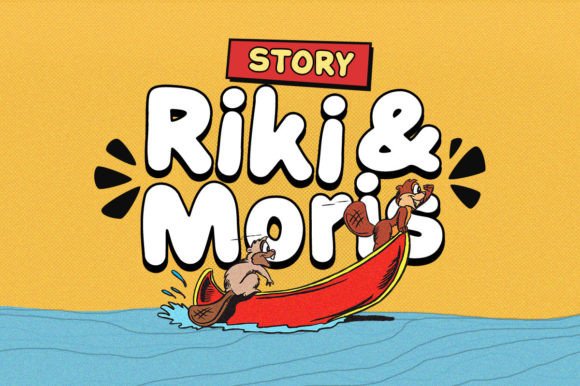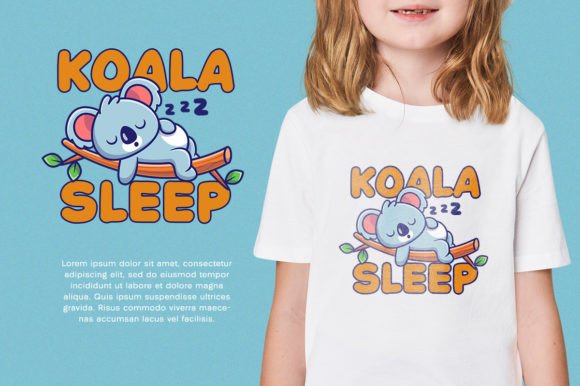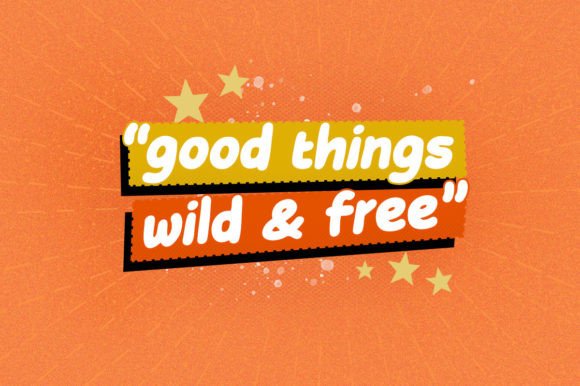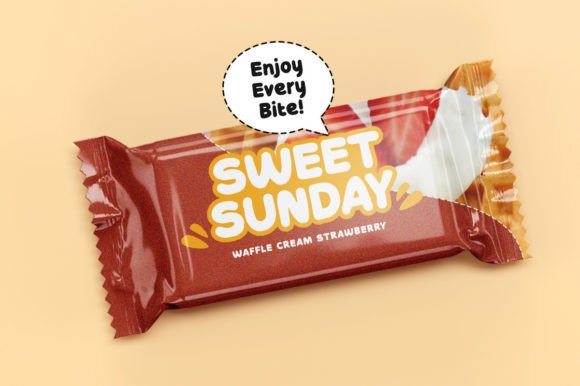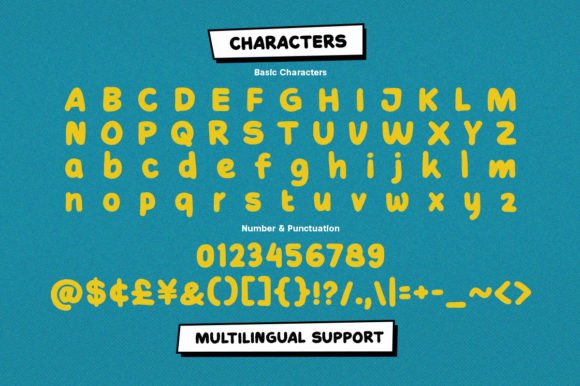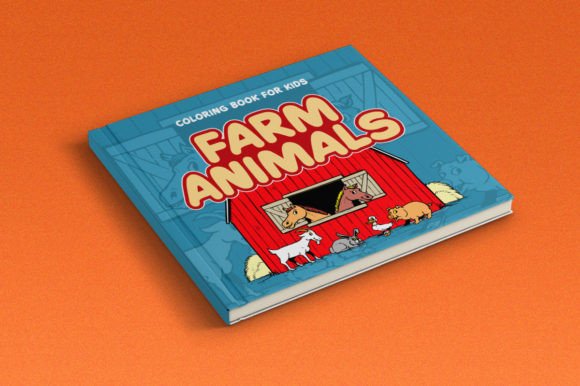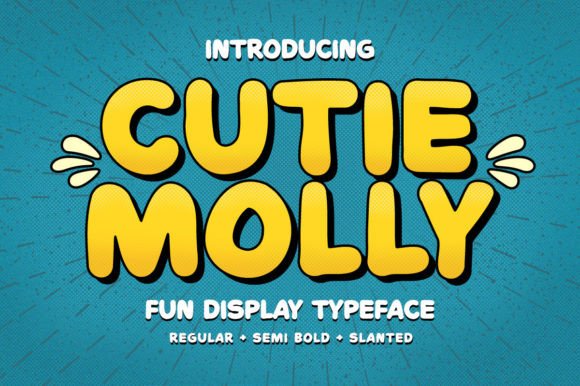
Introducing Cutie Molly Font: The Playful Display Font You Need!
Are you tired of using the same old fonts for your creative projects? Look no further! Cutie Molly Font is here to shake things up and bring a fresh wave of fun and playfulness to your designs. This beautifully crafted display font is perfect for designers, crafters, and anyone looking to add a touch of whimsy to their work.
What Makes Cutie Molly Font So Special?
Cutie Molly Font is a masterfully designed display font that is sure to become a true favorite in your collection. Its unique and playful style makes it perfect for a wide range of creative projects, from branding and advertising to crafting and DIY tutorials. With its bold and eye-catching letters, Cutie Molly Font has the potential to bring each of your creative ideas to the highest level!
Key Features of Cutie Molly Font
- Fun and Playful Style: Cutie Molly Font is designed to add a touch of fun and playfulness to your designs. Its bold and eye-catching letters are sure to grab attention and make your projects stand out.
- Masterfully Designed: This font is carefully crafted to ensure that it looks great in any context. Whether you’re using it for a title, heading, or body text, Cutie Molly Font is sure to impress.
- Versatile: Cutie Molly Font is perfect for a wide range of creative projects, from digital designs to print materials. Its unique style makes it suitable for use in a variety of contexts, from formal to informal.
How to Use Cutie Molly Font in Your Designs
Cutie Molly Font is perfect for a wide range of creative projects, including:
- Branding and Advertising: Use Cutie Molly Font to create eye-catching logos, ads, and marketing materials that will grab attention and leave a lasting impression.
- Crafting and DIY Tutorials: Add a touch of fun and playfulness to your crafting and DIY tutorials with Cutie Molly Font. Use it to create titles, headings, and body text that will make your projects stand out.
- Digital Designs: Cutie Molly Font is perfect for digital designs, including social media graphics, blog posts, and website headers.
- Print Materials: Use Cutie Molly Font to create eye-catching print materials, including brochures, flyers, and posters.
Tips and Tricks for Getting the Most Out of Cutie Molly Font
Here are a few tips and tricks for getting the most out of Cutie Molly Font:
- Experiment with Different Sizes and Colors: Cutie Molly Font looks great in a variety of sizes and colors. Experiment with different combinations to find the one that works best for your project.
- Use it with Other Fonts: Cutie Molly Font pairs well with a variety of other fonts. Try using it with a sans-serif font for a bold and modern look.
- Make it Your Own: Don’t be afraid to get creative with Cutie Molly Font. Use it as a starting point and add your own unique twist to make it truly special.